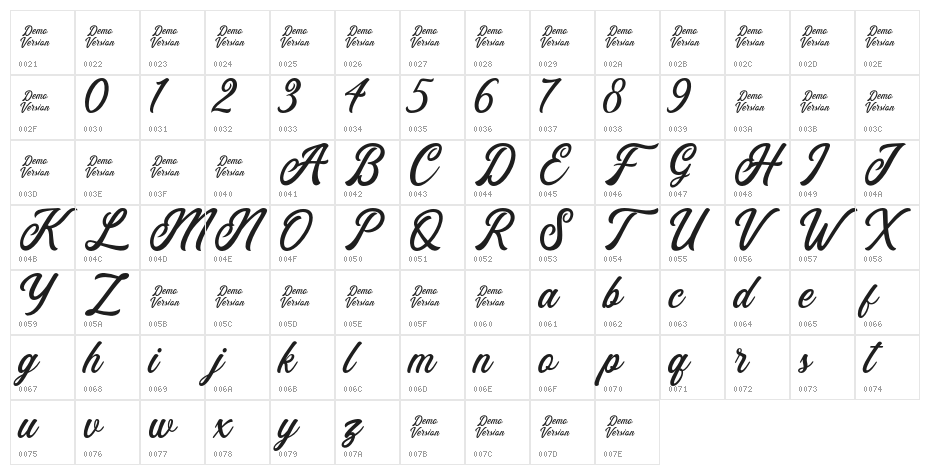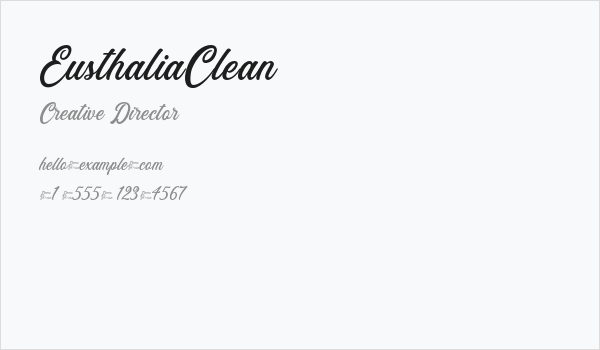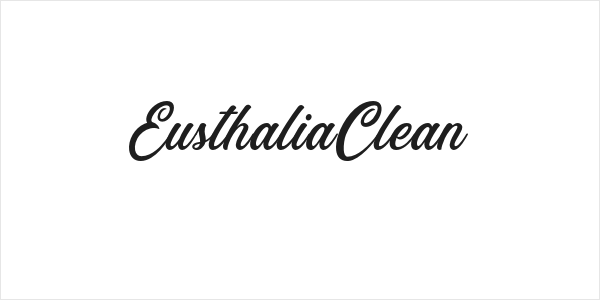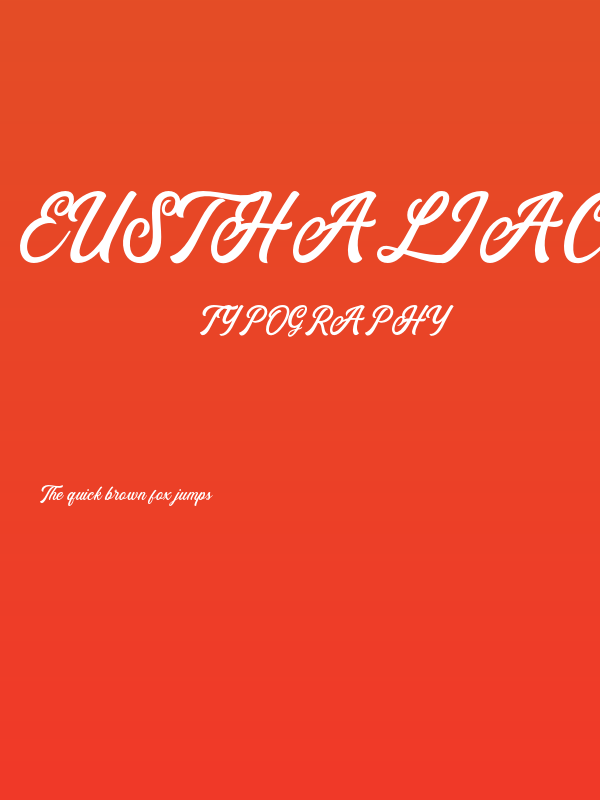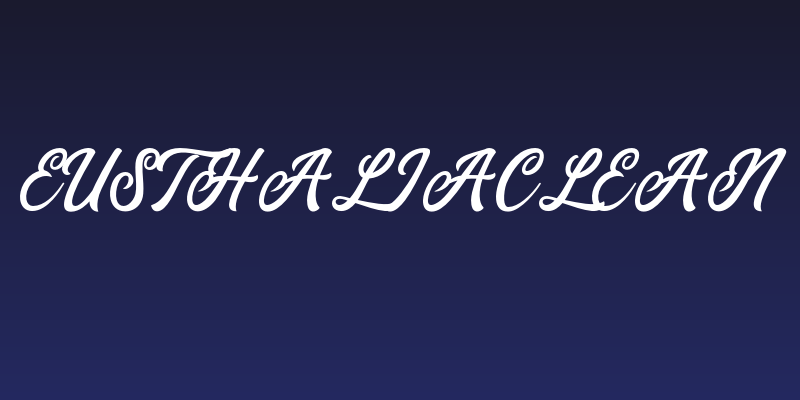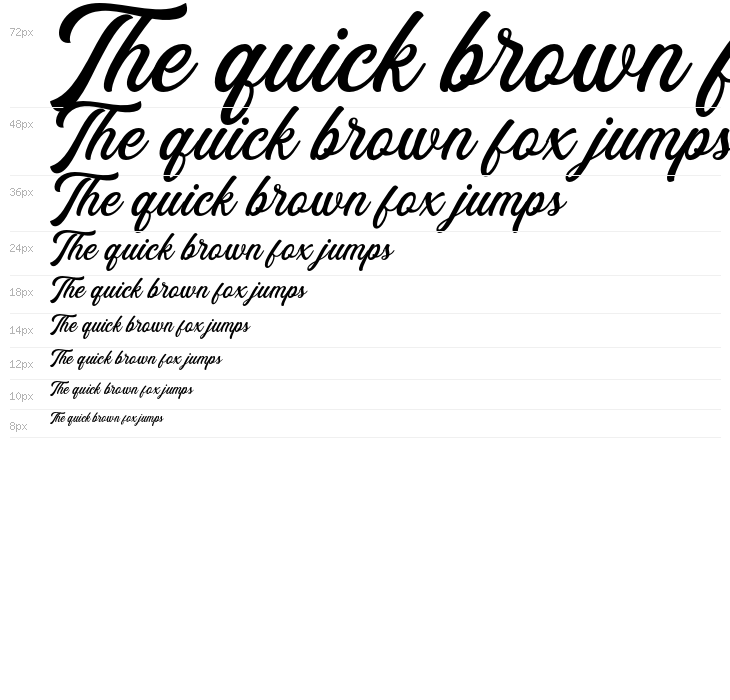
EusthaliaClean Font
EusthaliaClean Description
This font features a flowing, cursive style that exudes elegance and sophistication. The characters are connected in a smooth, continuous manner, giving it a handwritten appearance. The uppercase letters are slightly more ornate, with flourishes that add a touch of flair. The lowercase letters maintain a consistent flow, enhancing readability while preserving the decorative nature. The numerals are styled to match the script, ensuring a cohesive look across all characters. This font is ideal for projects that require a personal touch, such as invitations, greeting cards, or branding materials.
| Overall Style | Elegant, Decorative |
| Proposed Projects | Ideal for wedding invitations, greeting cards, personal branding, and elegant logos. |